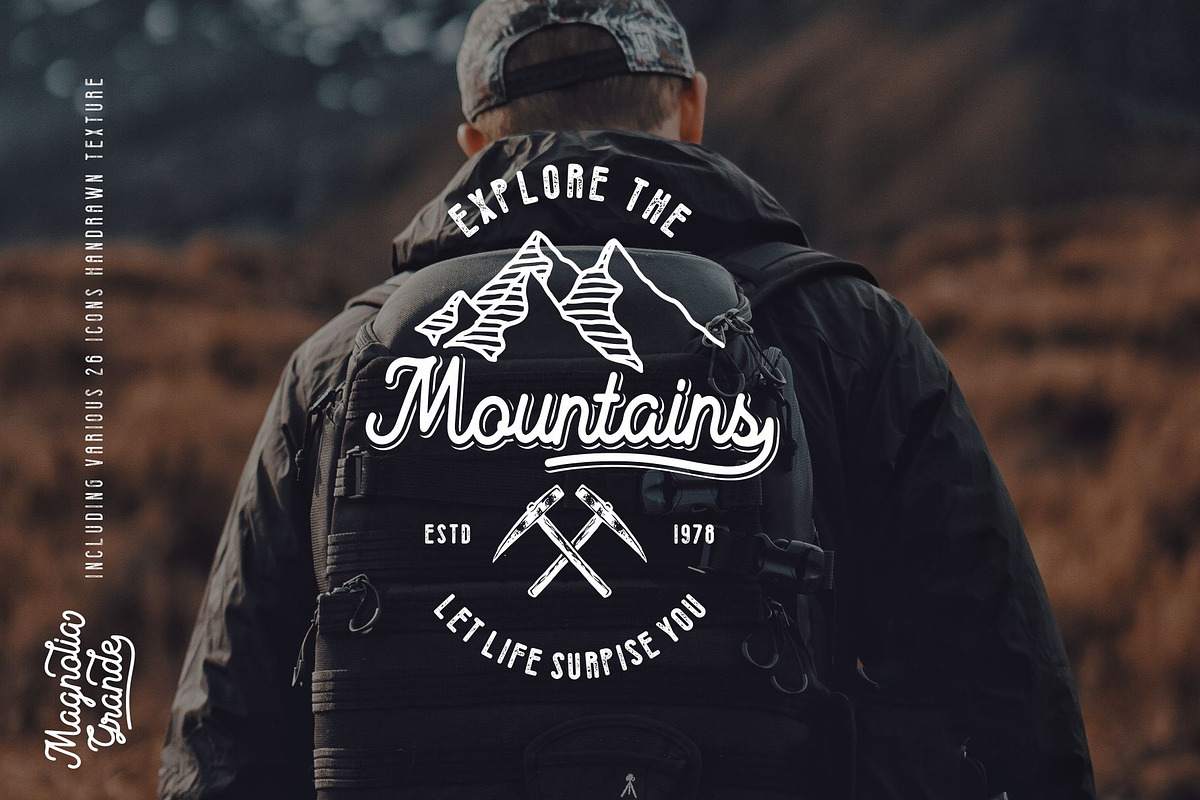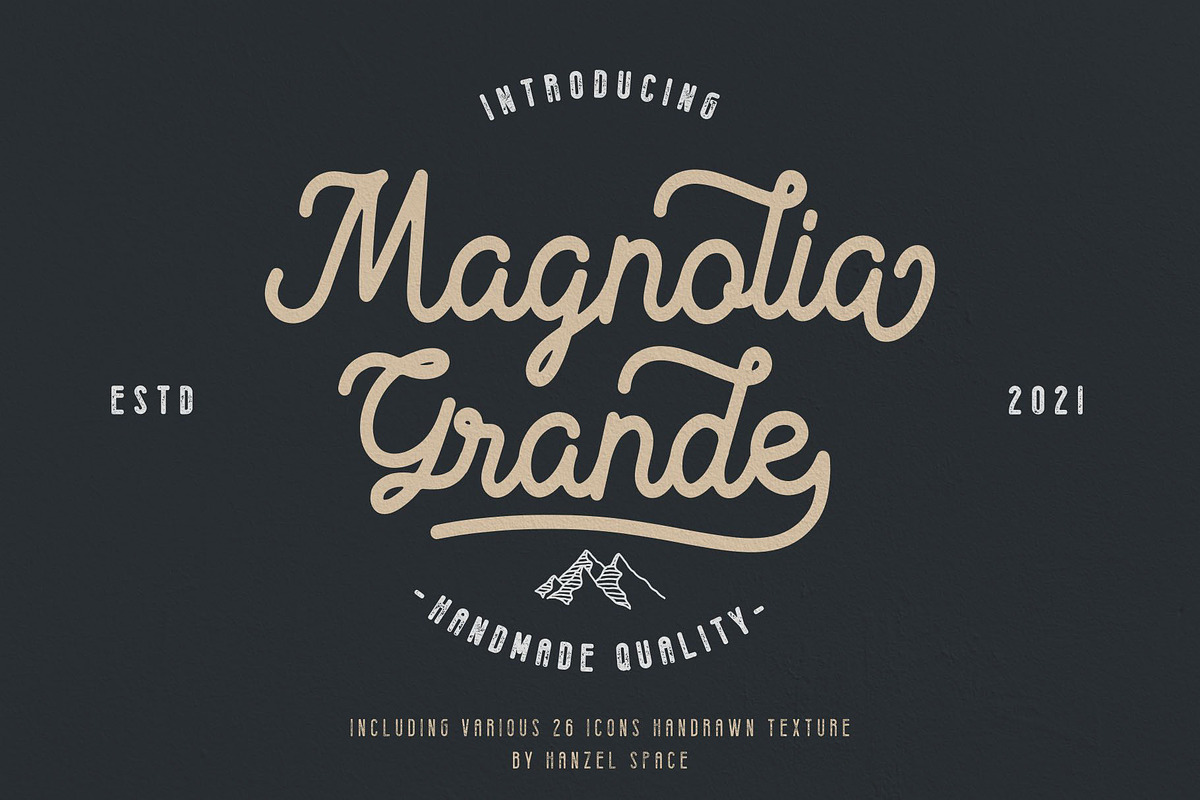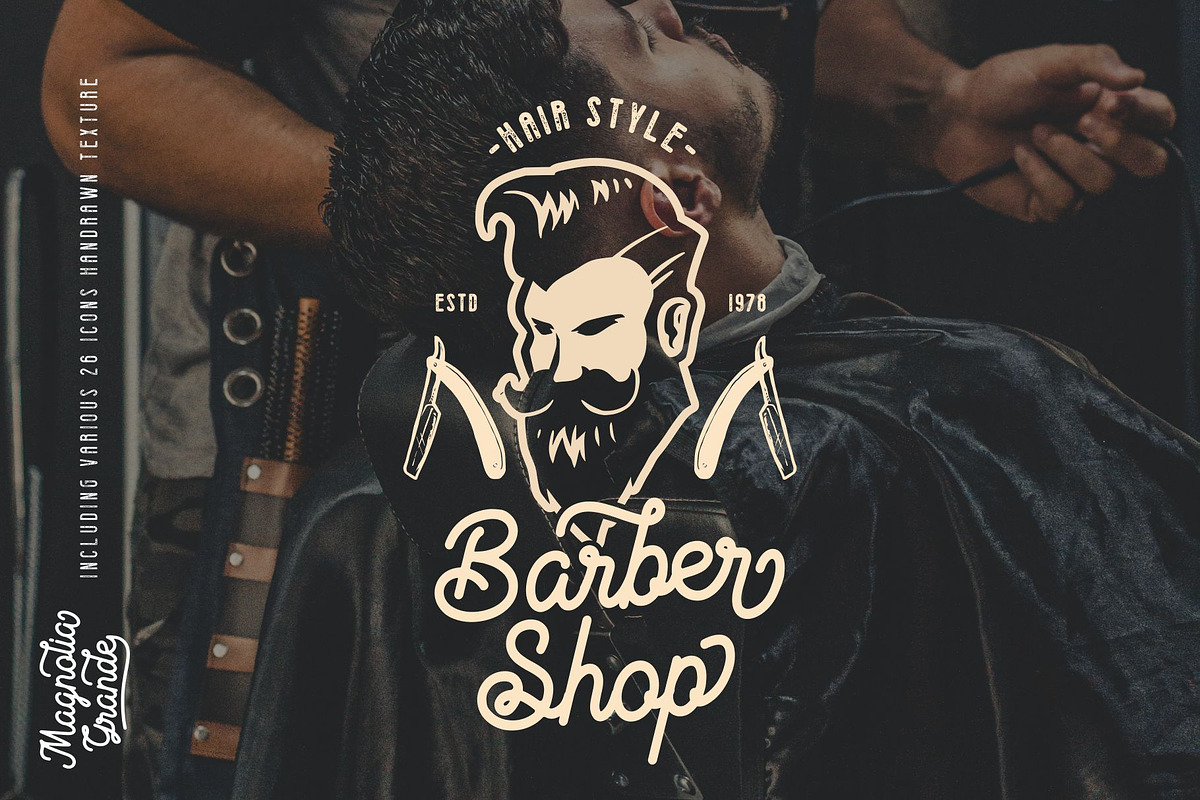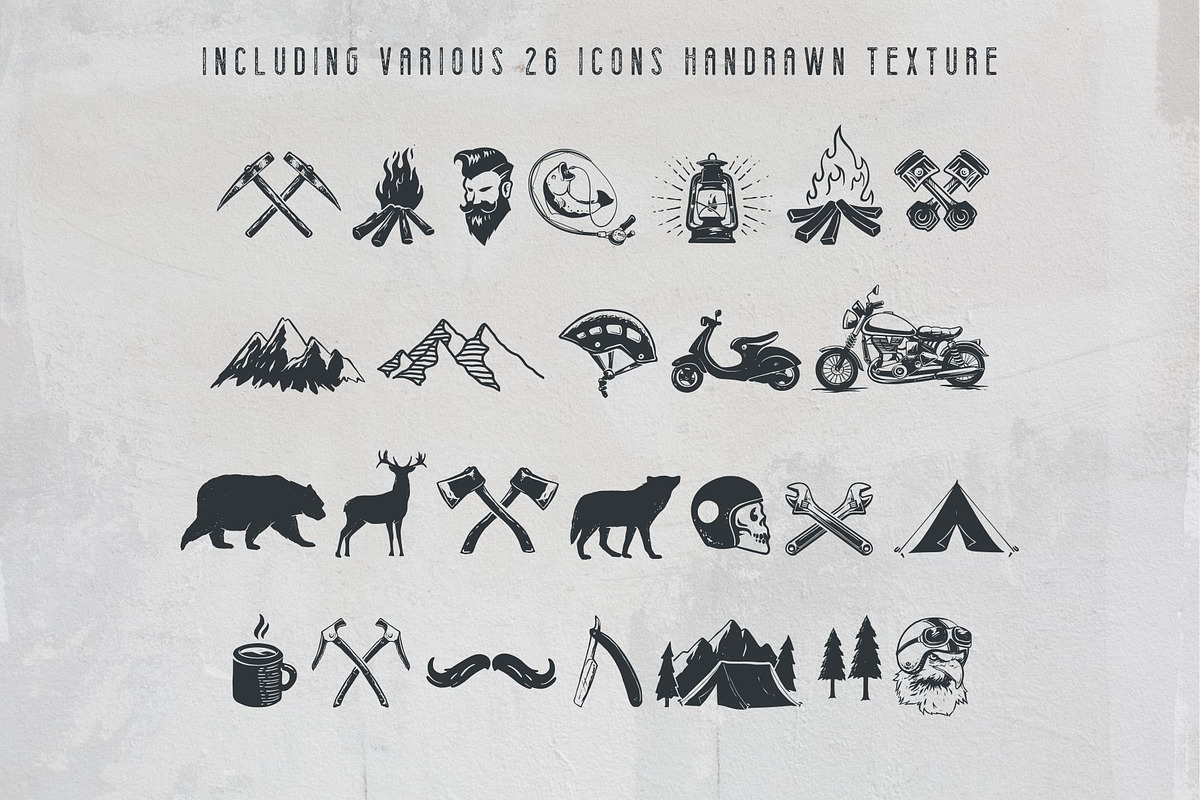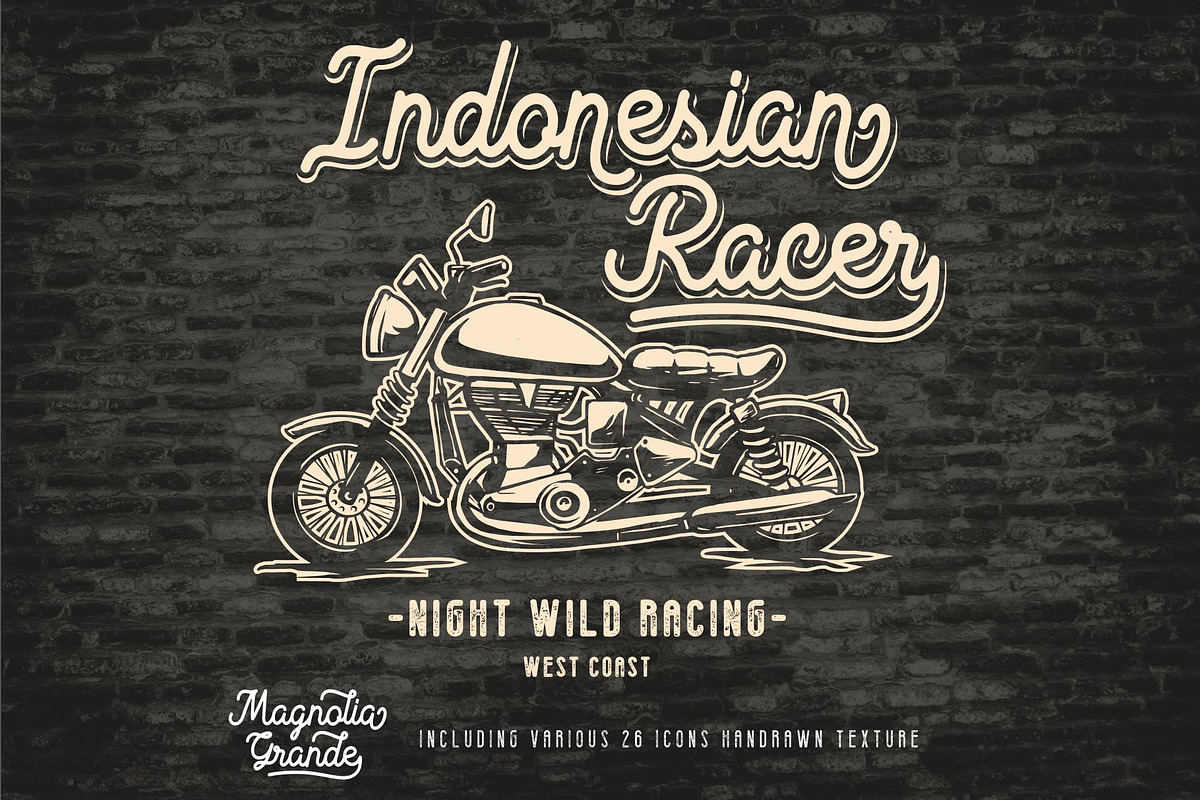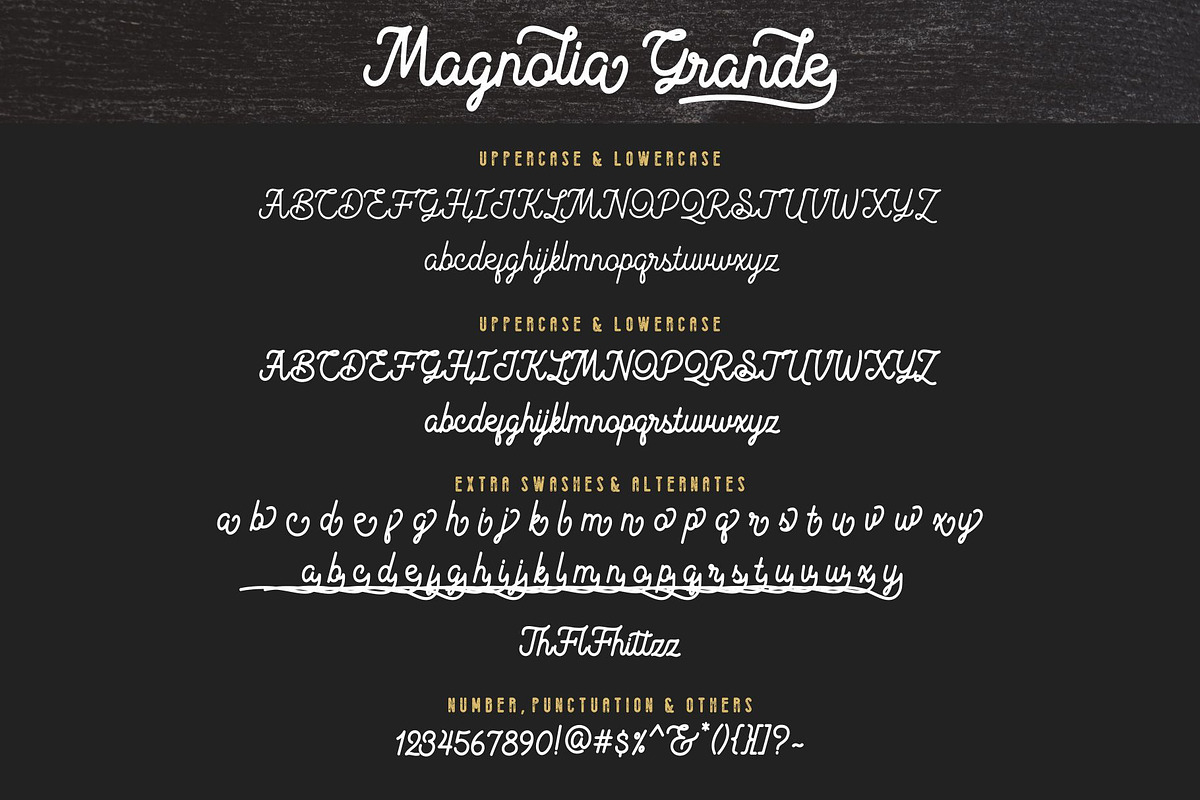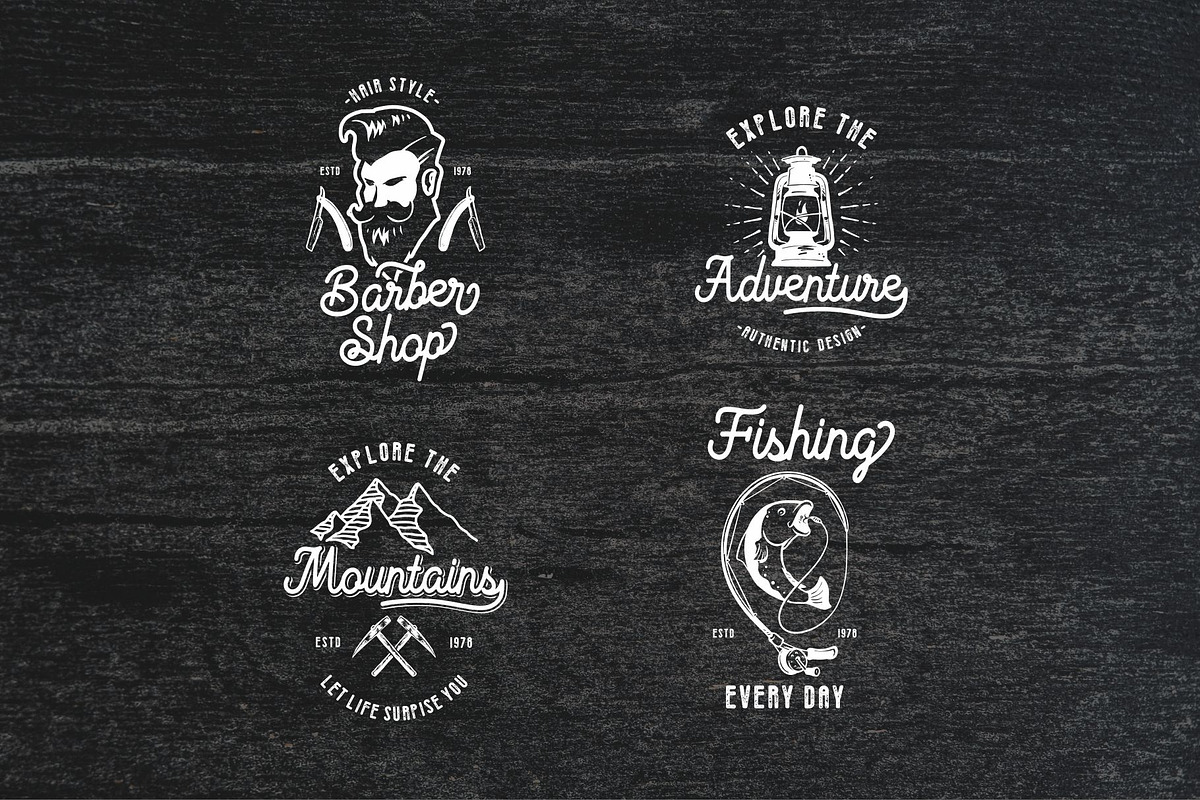
Magnolia Grande with Include Icons
Introducing – Magnolia Grande with Include Icons
The Magnolia Grande Font Collection contains a set of 5 textured fonts with an authentic hand crafted look. The fonts are inspired by vintage brick wall murals and they work perfectly for logo, packaging or title design with a hand crafted vibe. Furthermore the product contains a set of and over 26 hand drawn icons!! This makes logo & badge design easier than ever before! To round off the product.
Character set A-Z with special uppercase letters
26 Stylistic Alternates
Accented characters